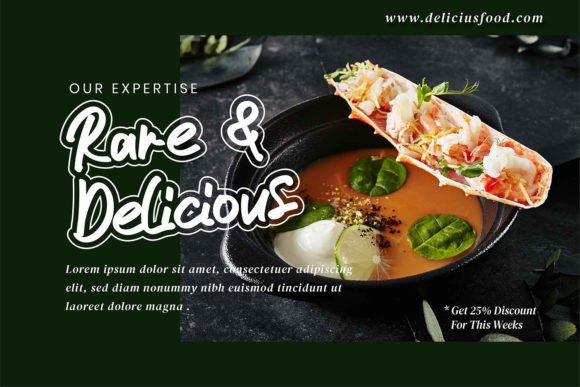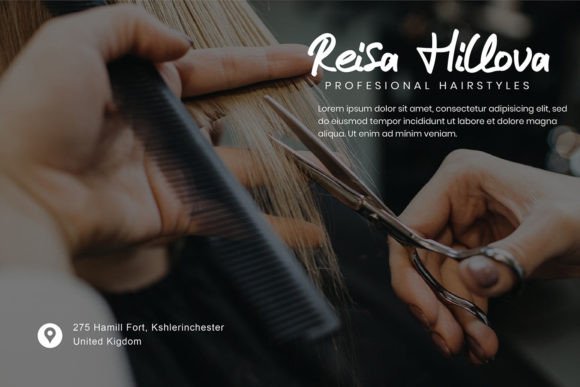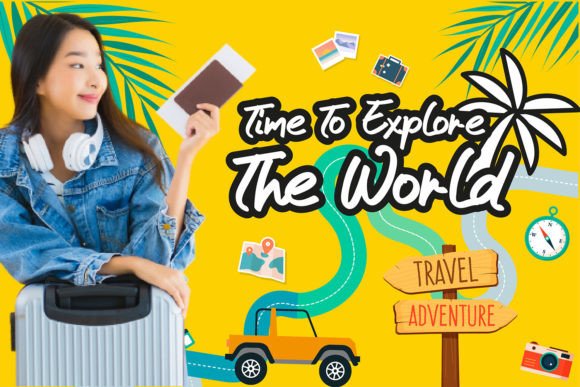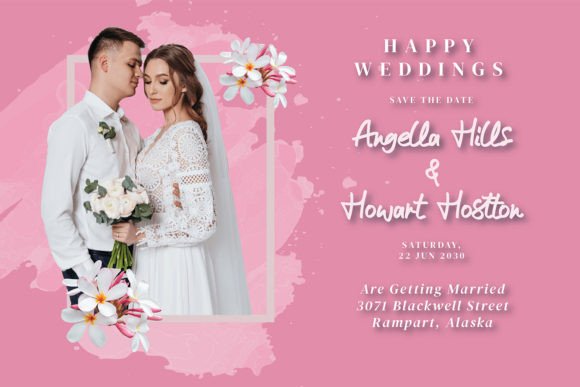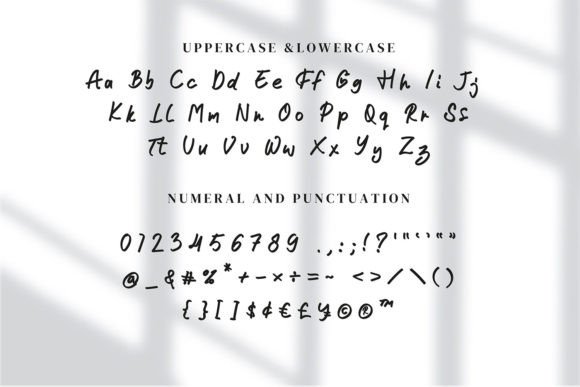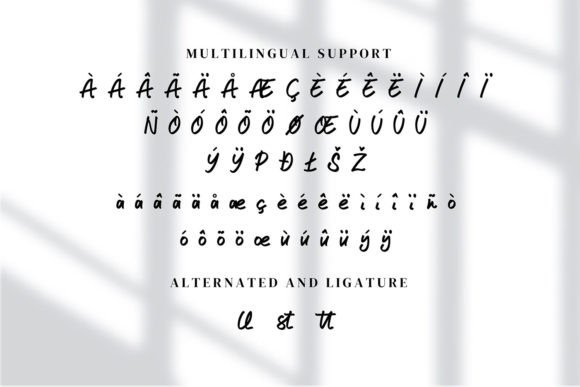
Rennata Font
About Rennata Font
Meet Rennata, a sweet and cursive handwritten font designed to add a gentle and delightful touch to your projects. This charming font is versatile and well-suited for various design ideas, infusing a joyful and romantic vibe into each creation. Rennata is the perfect choice for branding, logos, wedding materials, greeting cards, fashion-related projects, lookbooks, marketing promotions, or whenever you want to achieve a fancy and elegant yet still casual appearance.
The sweetness of Rennata is evident in its cursive and handwritten style. The fluid and graceful strokes contribute to an overall design that feels warm and inviting. This font is crafted to enhance the aesthetic of your projects with a touch of elegance.
For branding and logos, Rennata stands out by bringing a personalized and charming signature style. It adds a unique and identifiable element to your brand identity, making it memorable and appealing to your audience.
In wedding materials, Rennata infuses a romantic and joyful atmosphere. Its cursive script is well-suited for invitations, save-the-date cards, and other elements that contribute to the special ambiance of weddings.
Greeting cards and fashion-related projects benefit from the casual yet elegant nature of Rennata. It captures attention with its stylish appearance while maintaining a friendly and approachable feel.
For lookbooks and marketing promotions, Rennata adds a touch of sophistication. Its versatility allows it to adapt to various styles, making it a valuable asset for promoting fashion or lifestyle brands.
Whether you’re creating digital or print materials, Rennata proves to be a font that adds character and personality to your designs. It’s more than just letters; it’s a visual expression that enhances the overall aesthetic of your projects.
In summary, Rennata is a sweet and cursive handwritten font that effortlessly brings joy and romance to your designs. Its versatility makes it suitable for a wide range of applications, allowing you to create projects that are not only fancy and elegant but also carry a delightful and personalized touch.